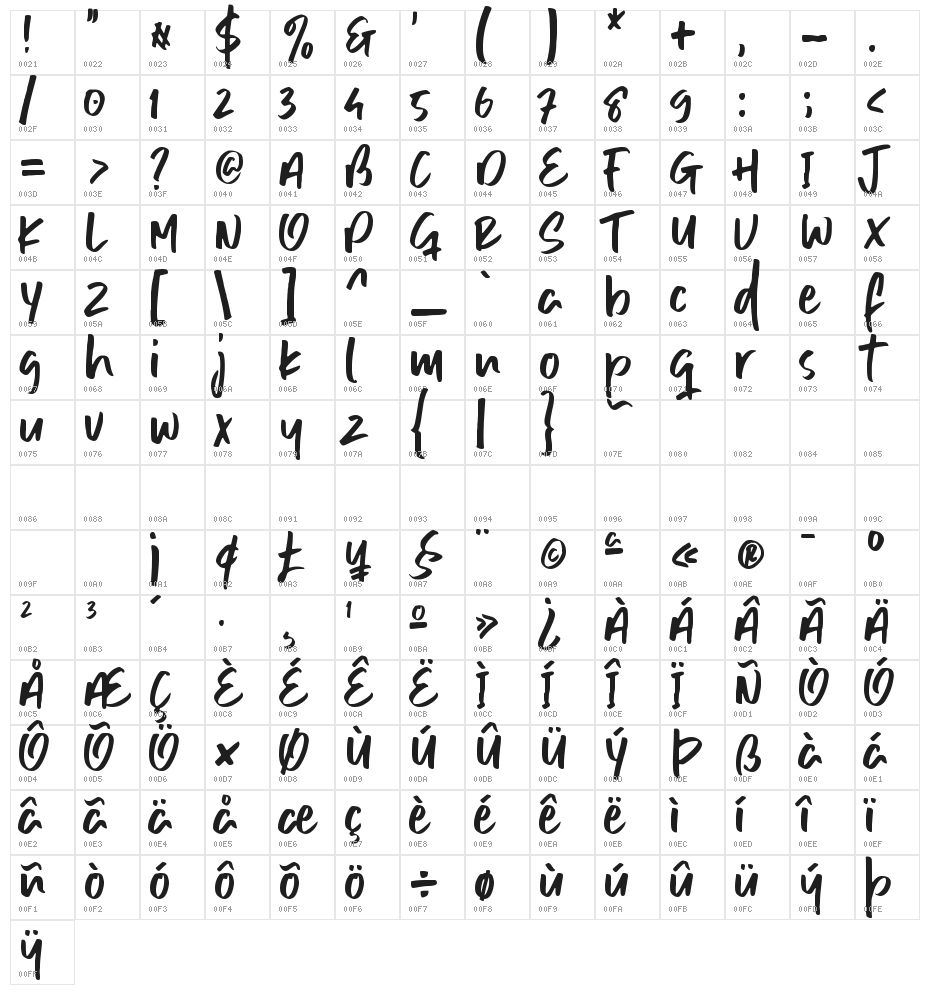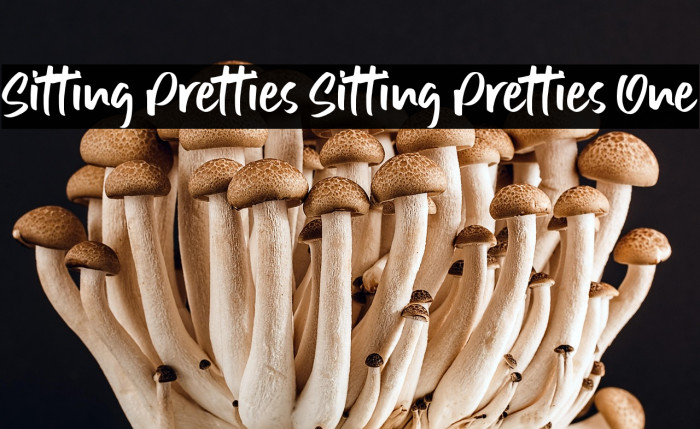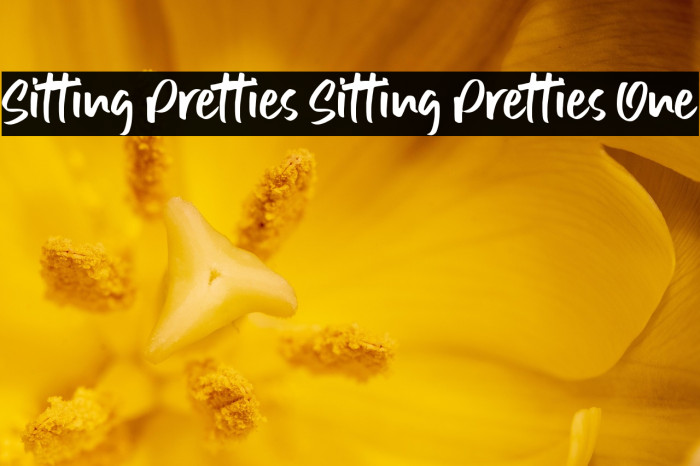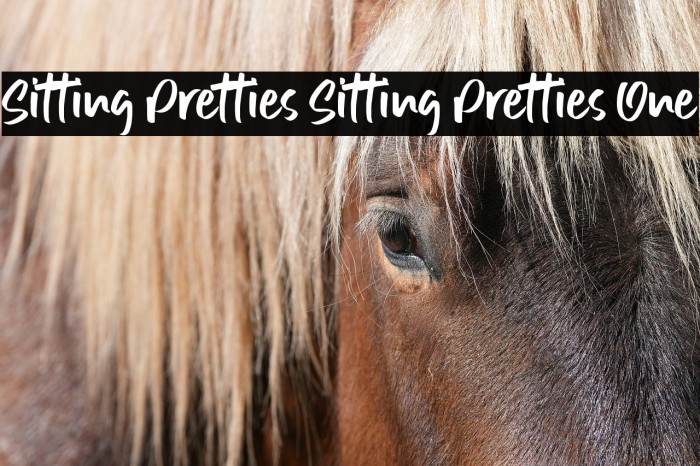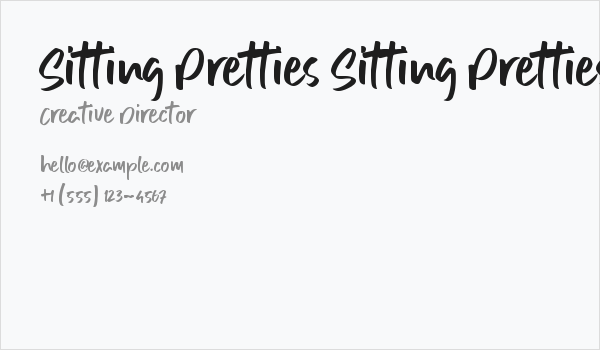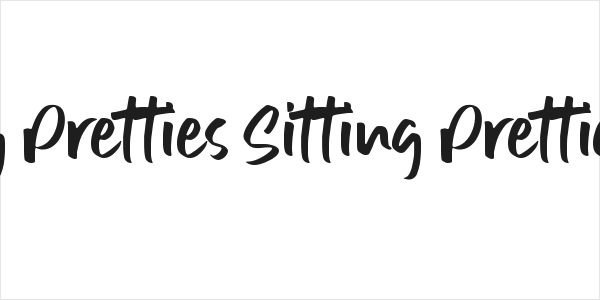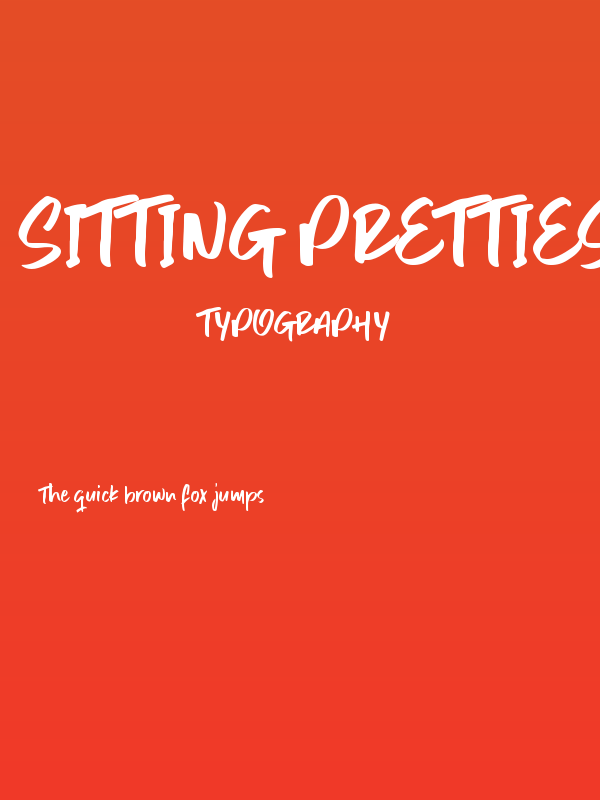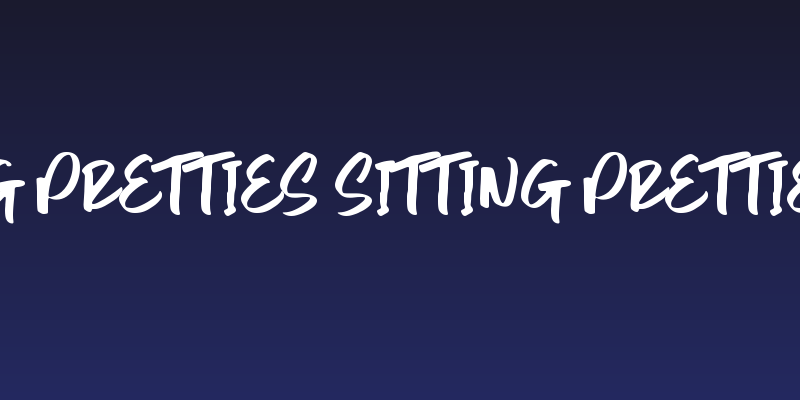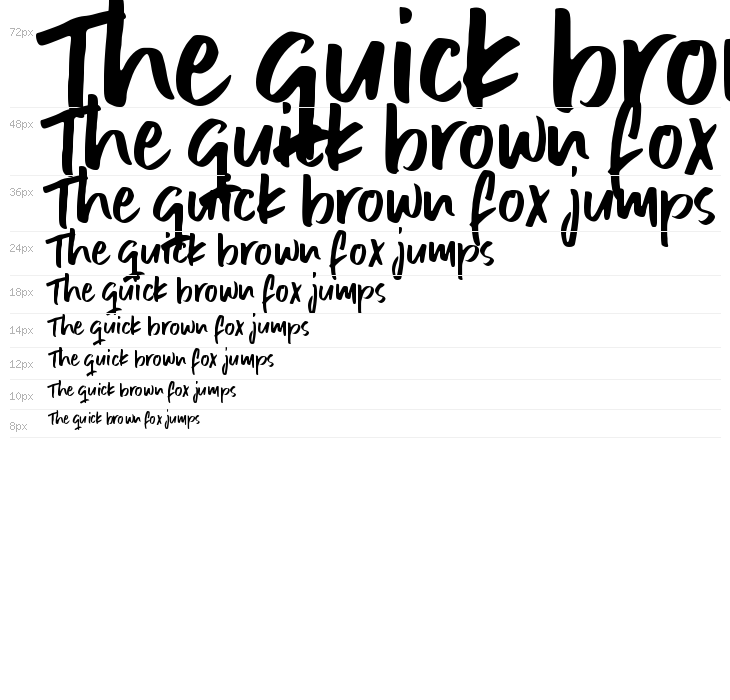
Sitting Pretties One Font
Sitting Pretties One Description
This font features a lively and expressive handwritten style, characterized by bold, sweeping strokes and a playful, casual appearance. The letters are slightly slanted, adding to the dynamic feel, while maintaining legibility. The uppercase and lowercase letters are well-balanced, with a consistent flow that mimics natural handwriting. The numbers and special characters are equally expressive, fitting seamlessly with the overall style. This font exudes a sense of creativity and spontaneity, making it ideal for projects that require a personal touch.
| Proposed Projects | Ideal for greeting cards, invitations, personal branding, social media graphics, and creative projects that require a personal touch. |